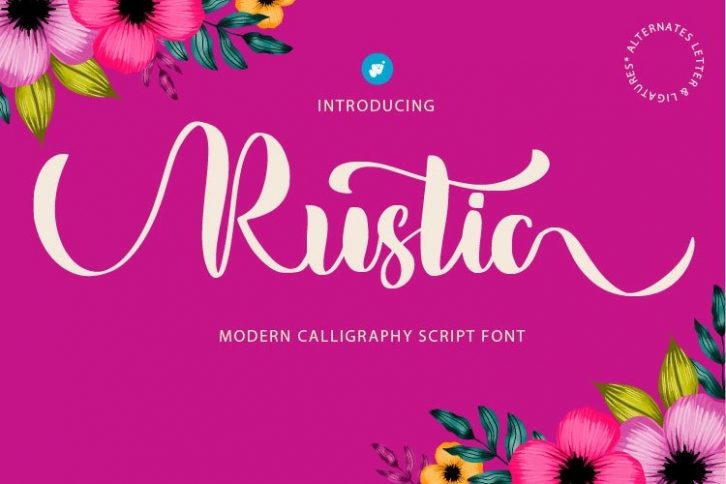
Rustic Wedding is a great font that was designed by WAP. Imagine the amount of combinations you can create using this font! The archive is 13.99 MB and it was released on December 5, 2021. Rustic Wedding looks beautiful on wedding invitations, greeting cards, logos, posters, labels, t-shirt designs, logos, business cards and is perfect for use in ink or watercolor works, fashion, magazines, packaging and food menus, children's books and more!